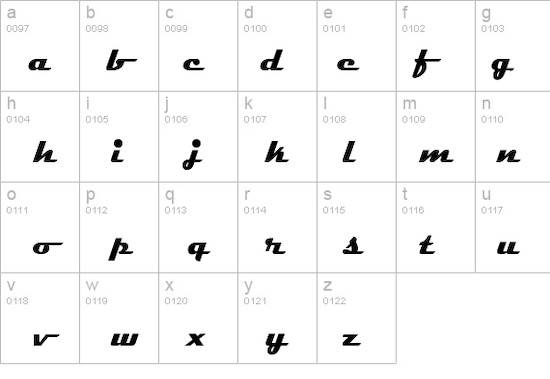
Cars is a famous computer-animated comedy sports movie from America. It was produced in 2006 by Pixar. This movie got too much popularity after its release. And at the same time, the requirement of this fancy font family also increases.
About Cars font, the great font used for the poster title of this movie is very similar to the Magneto Bold font. The Magneto font is a display typeface which was designed by Leslie Cabarga. You can download and use this font FREE for personal as well as commercial purposes.
Cars Movie font